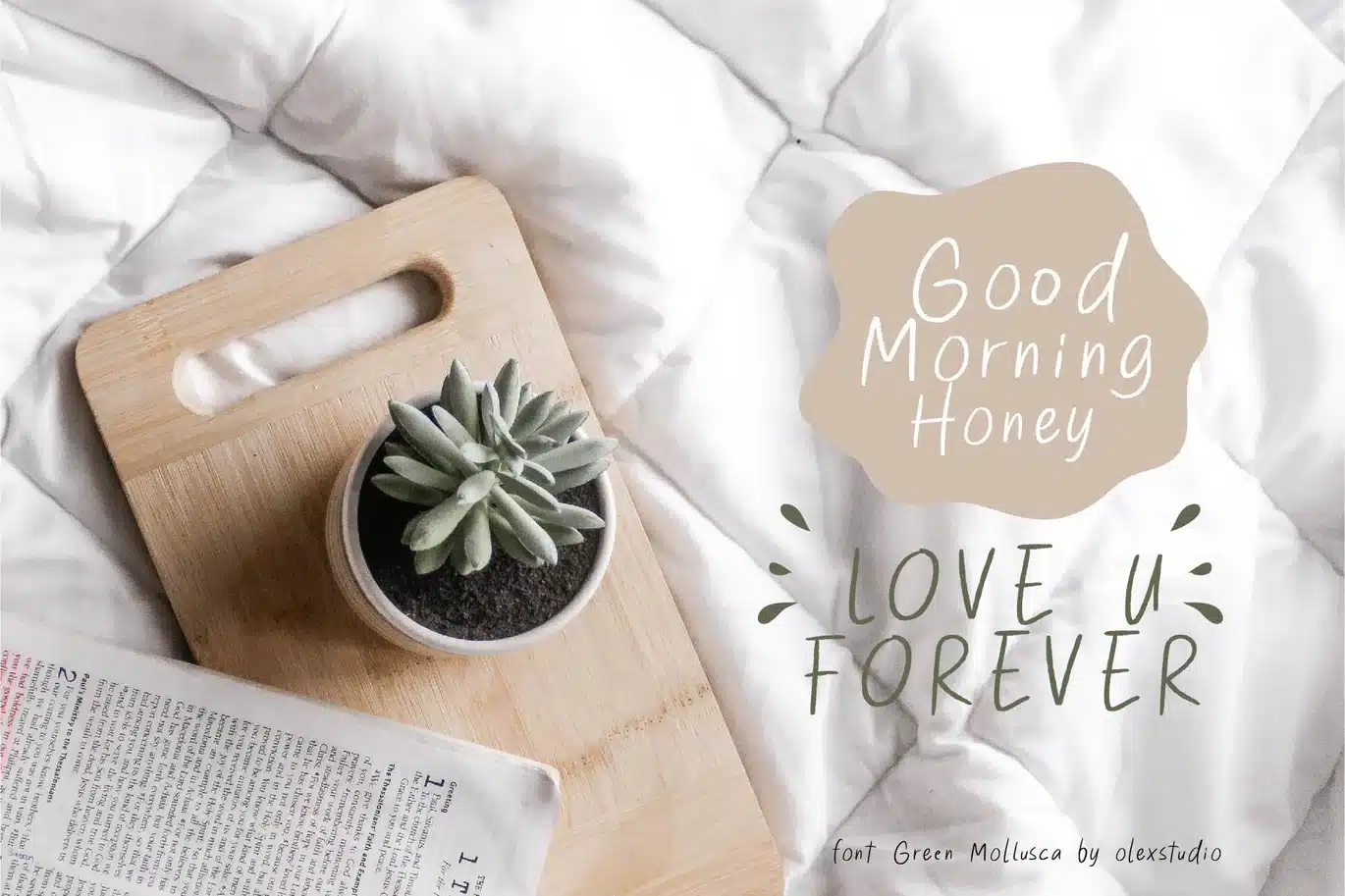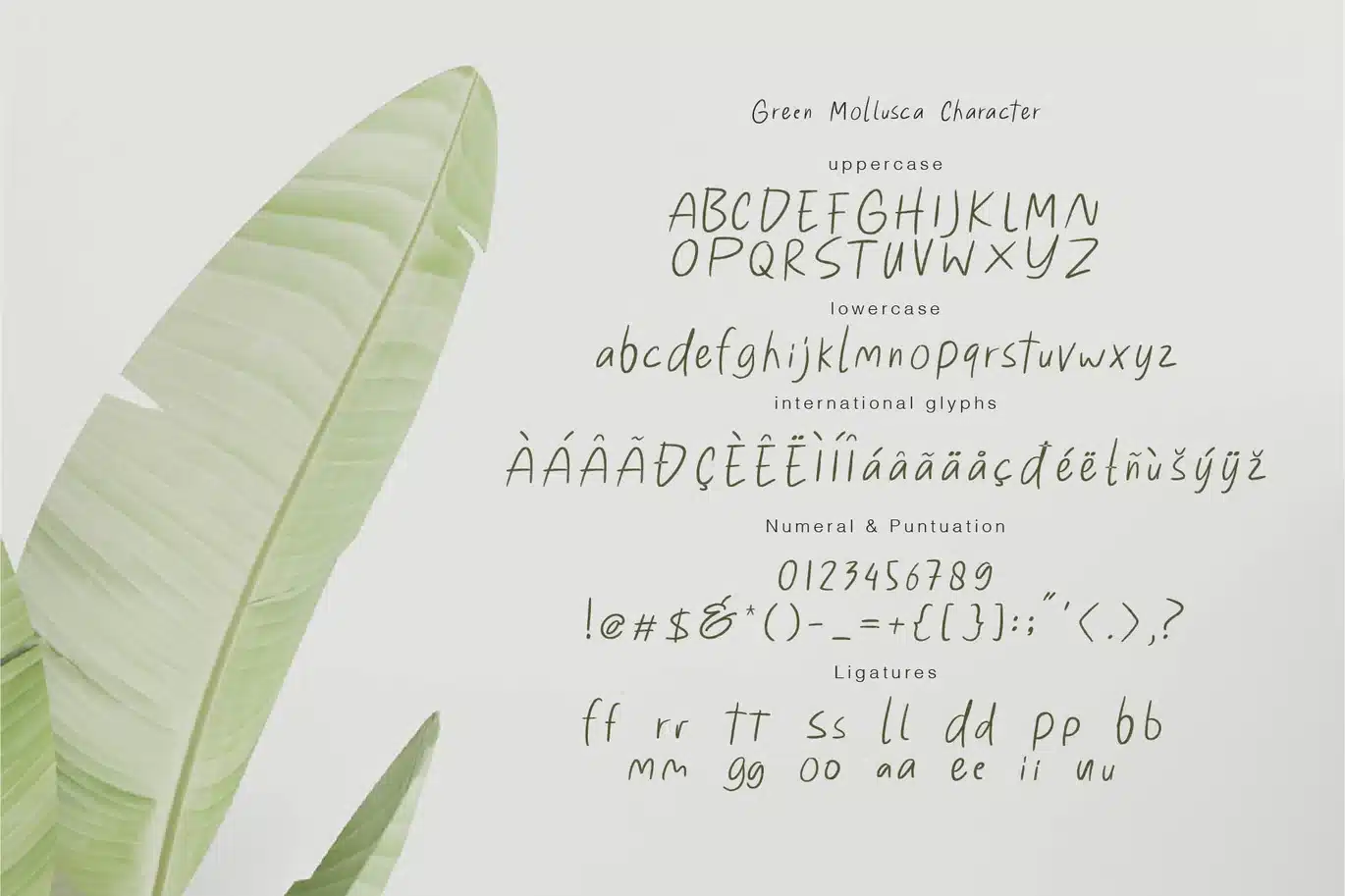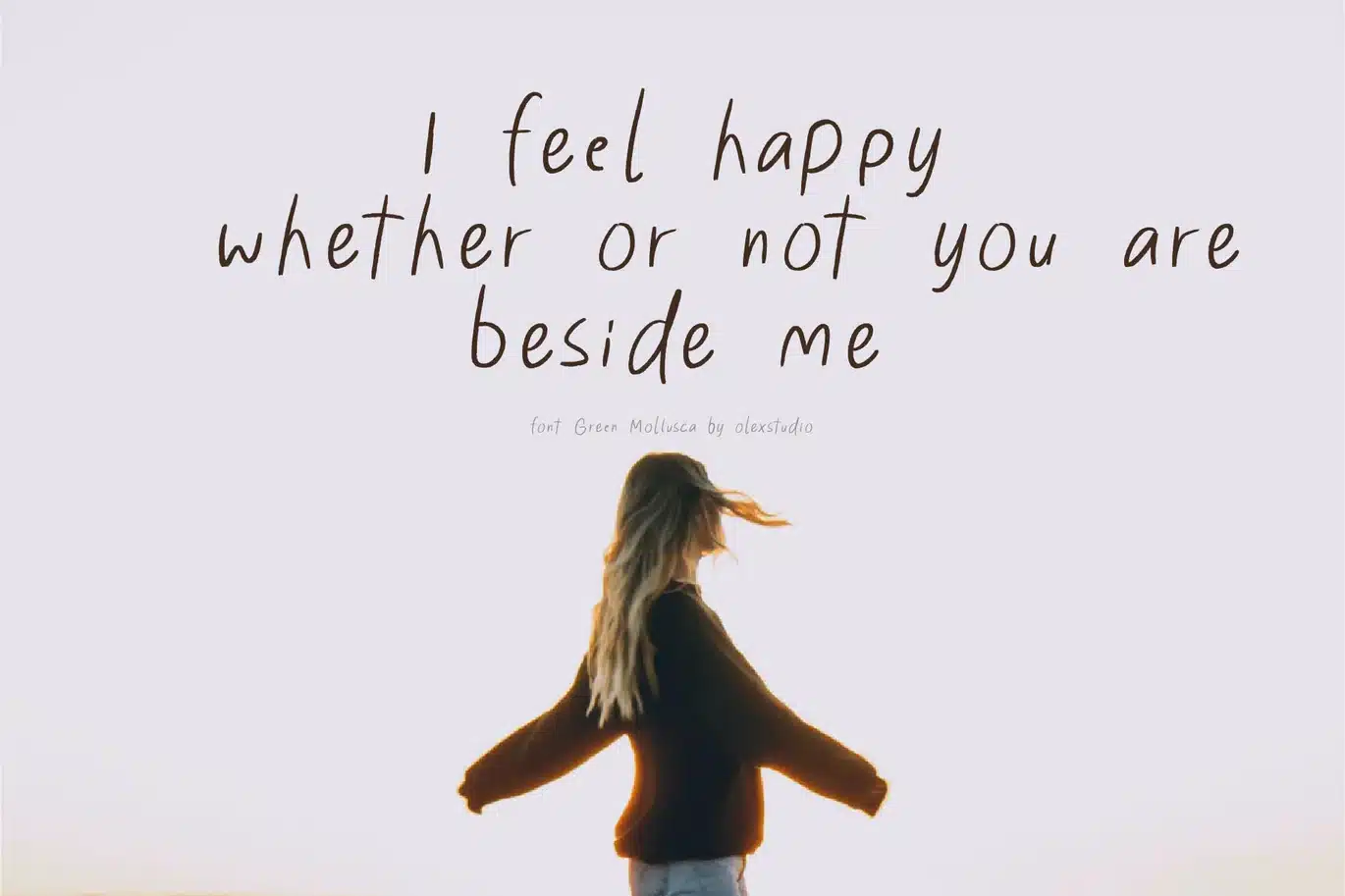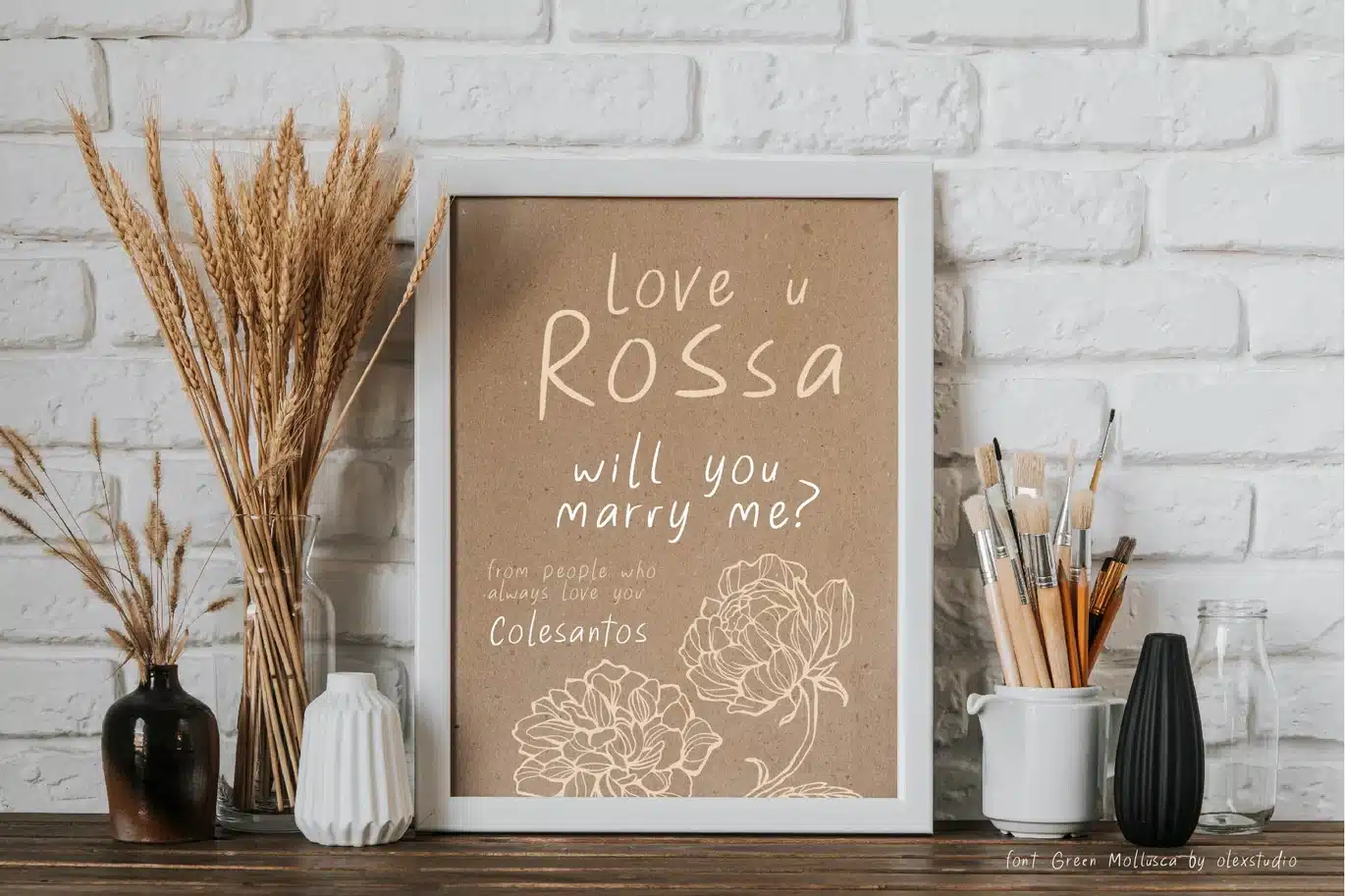
Green Mollusca – Display Font
Green Mollusca - Display Font will look gorgeous on all your designs, invitation, poster design, book design, branding materials, logo's and all project design other.
Green Mollusca - Display Font contains standard characters, Lowercase, Uppercase, numbers, punctuation, ligatures and international glyphs. You will receive OTF, TTF files & WEBFONT.